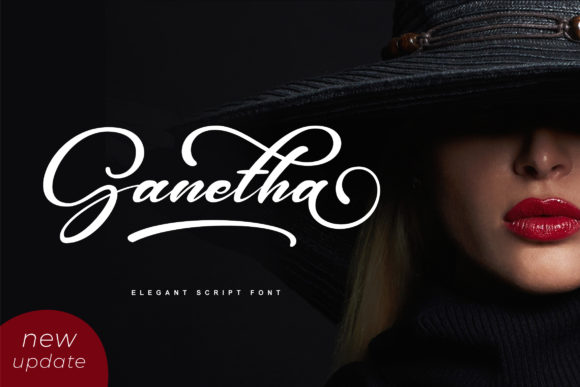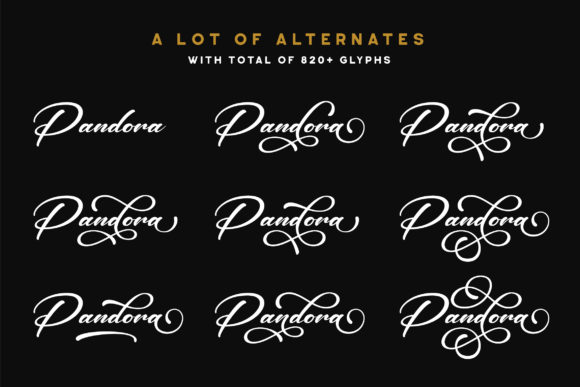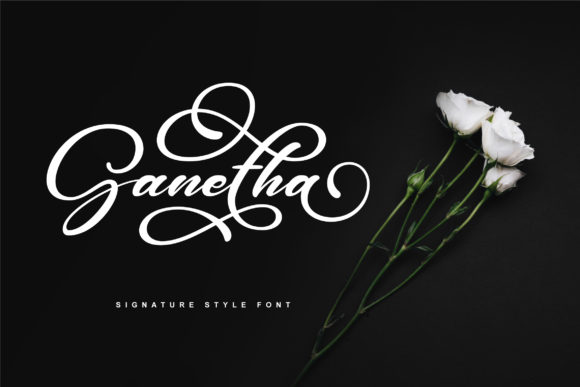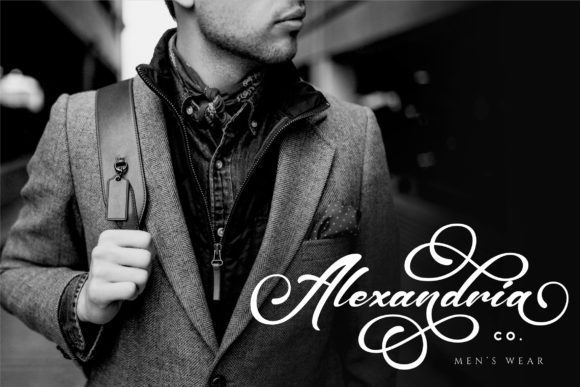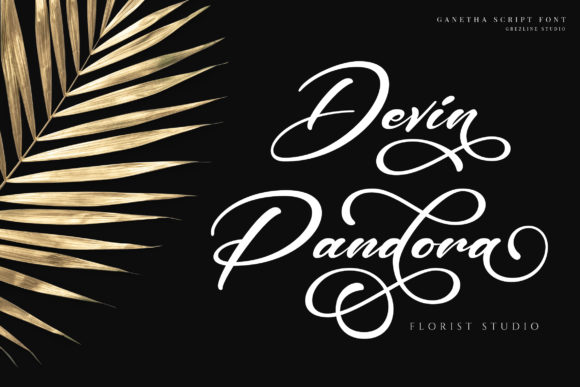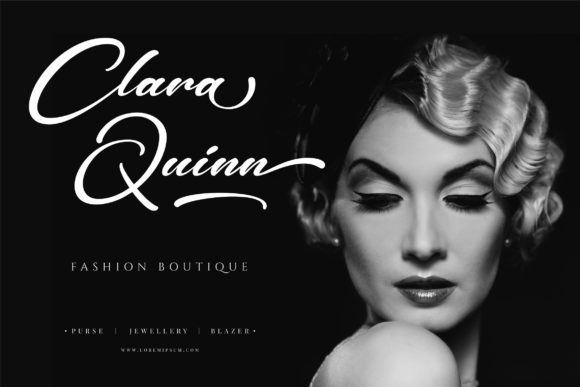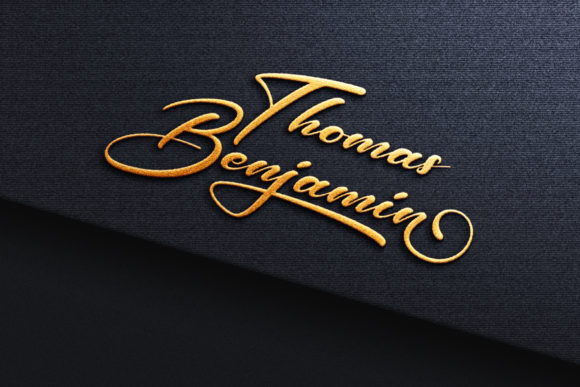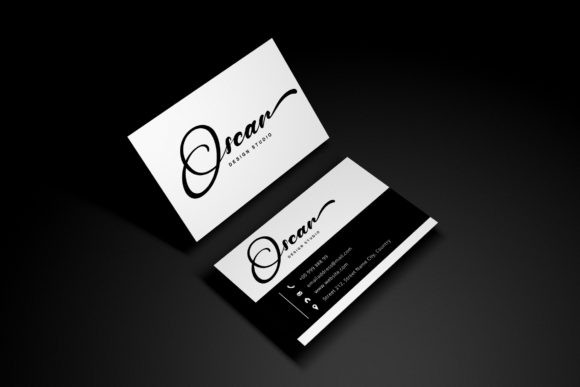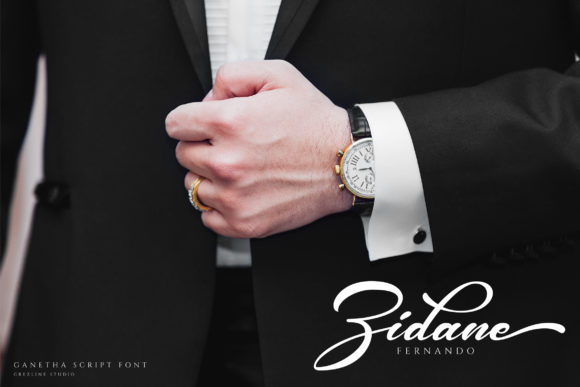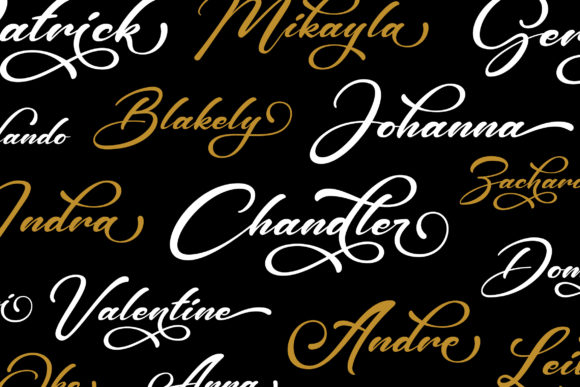
Ganetha Font
About Ganetha Font
Ganetha, a font that exudes elegance and fluidity, stands as a testament to the perfect fusion of classic calligraphy and modern aesthetics. With its meticulously crafted design and captivating allure, Ganetha offers an opportunity to elevate your projects to new heights of creativity and sophistication.
The beauty of Ganetha lies in its seamless and graceful strokes, which effortlessly flow from one letter to another. This font’s timeless appeal makes it an excellent choice for a wide array of projects, ranging from formal invitations and graceful thank-you cards to impactful quotes and striking logos. Ganetha has the unique ability to infuse your designs with a touch of refined beauty that captivates any viewer.
What sets Ganetha apart is its ability to blend the traditions of calligraphy with a contemporary twist. Each character is carefully designed to maintain a sense of classic elegance while embracing a fresh and modern vibe. The result is a harmonious balance that speaks to both timeless charm and current design trends.
Ganetha’s versatility is a defining feature. It effortlessly adapts to a multitude of creative contexts, lending an air of sophistication to every project it graces. Whether you’re creating printed materials or digital designs, Ganetha’s flowing and delicate strokes weave a narrative of beauty and artistry that draws the eye.
With Ganetha, every letter becomes a work of art in itself. The carefully crafted curves and lines combine to form a harmonious symphony of design, where each character contributes to the overall visual poetry. This attention to detail is what makes Ganetha not just a font, but a tool that empowers you to create designs that resonate with a refined aesthetic.
As you work with Ganetha, you’ll discover its capacity to transcend ordinary text into something extraordinary. Its flowing handwritten style effortlessly conveys a sense of sophistication and grace, ensuring that your projects stand out in a sea of design. Whether it’s a brand identity, an event invitation, or a social media post, Ganetha brings an air of elegance that captures attention.
Ganetha’s PUA encoding offers ease of access to its multitude of glyphs and swashes, providing you with the tools to unleash your creative potential. This font invites you to explore its various stylistic variations, enabling you to customize your designs and create something uniquely yours.
In a world where design speaks volumes, Ganetha whispers of timeless beauty and contemporary flair. It is more than just a font—it’s a partner in your creative journey. With Ganetha by your side, you have the means to transform your ideas into designs that are not just visually pleasing, but also resonate deeply with the essence of elegance and creativity.
So, embrace the allure of Ganetha and allow its elegant and flowing handwritten style to guide you. Let it infuse your projects with sophistication, while its contemporary touch keeps them fresh and relevant. With Ganetha, your designs will reach new heights, captivating audiences and leaving a lasting impression that reflects your dedication to artistic excellence.